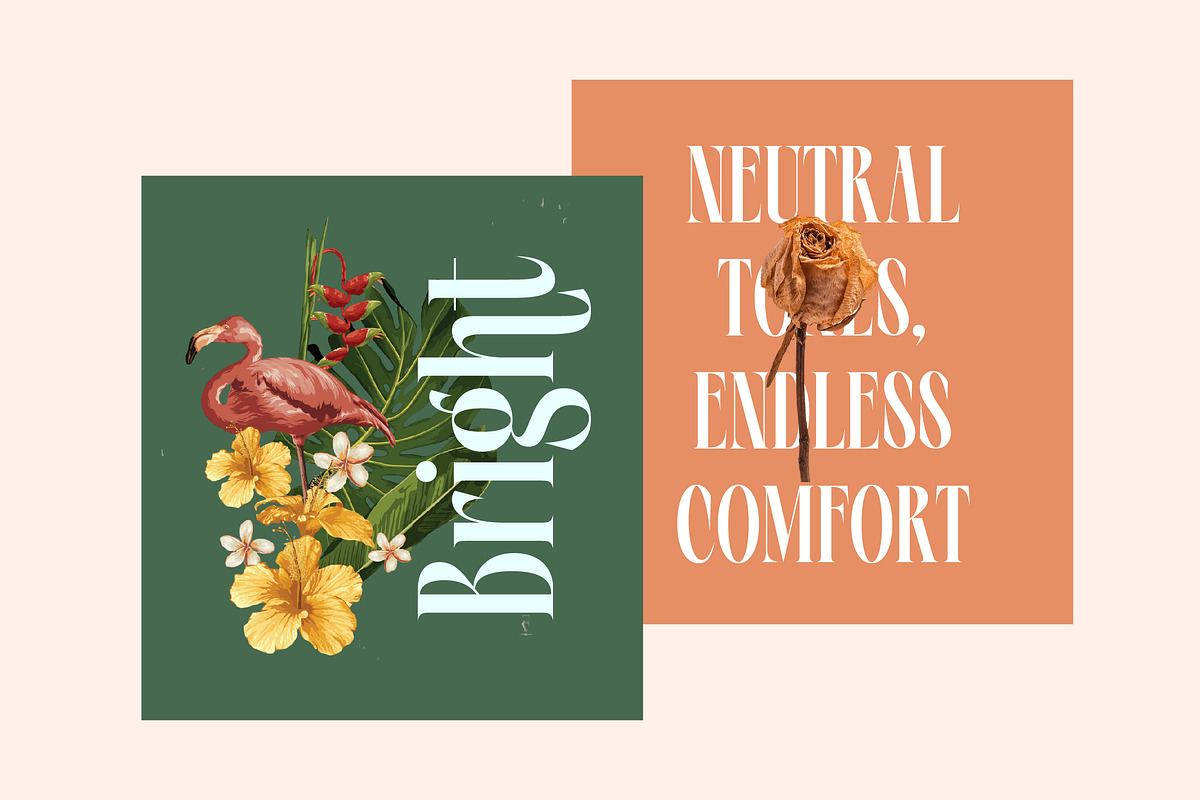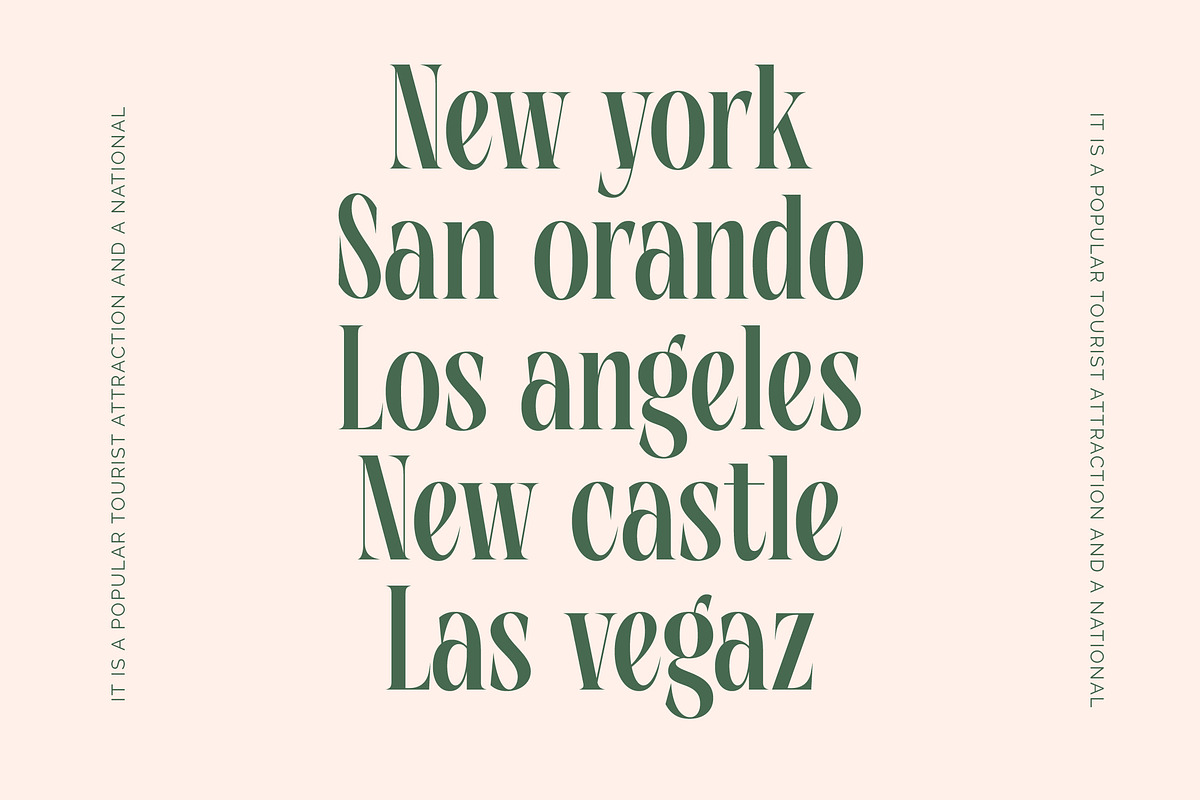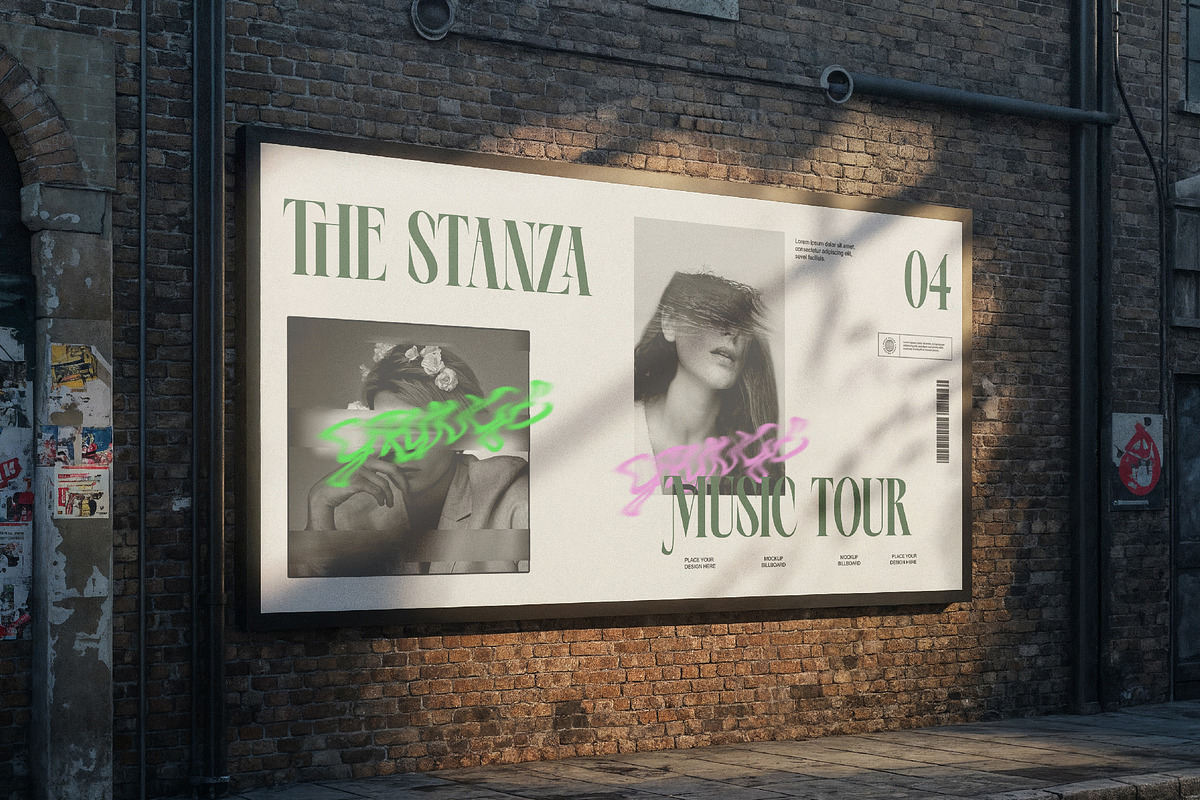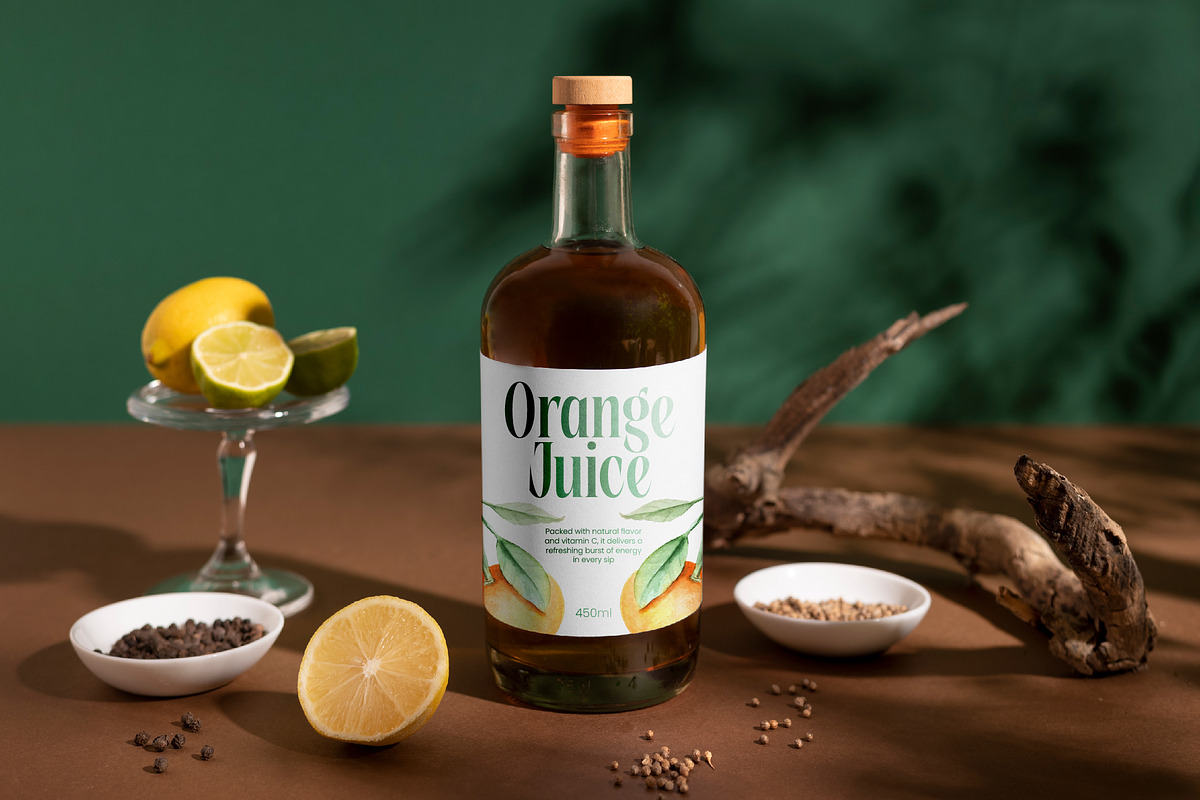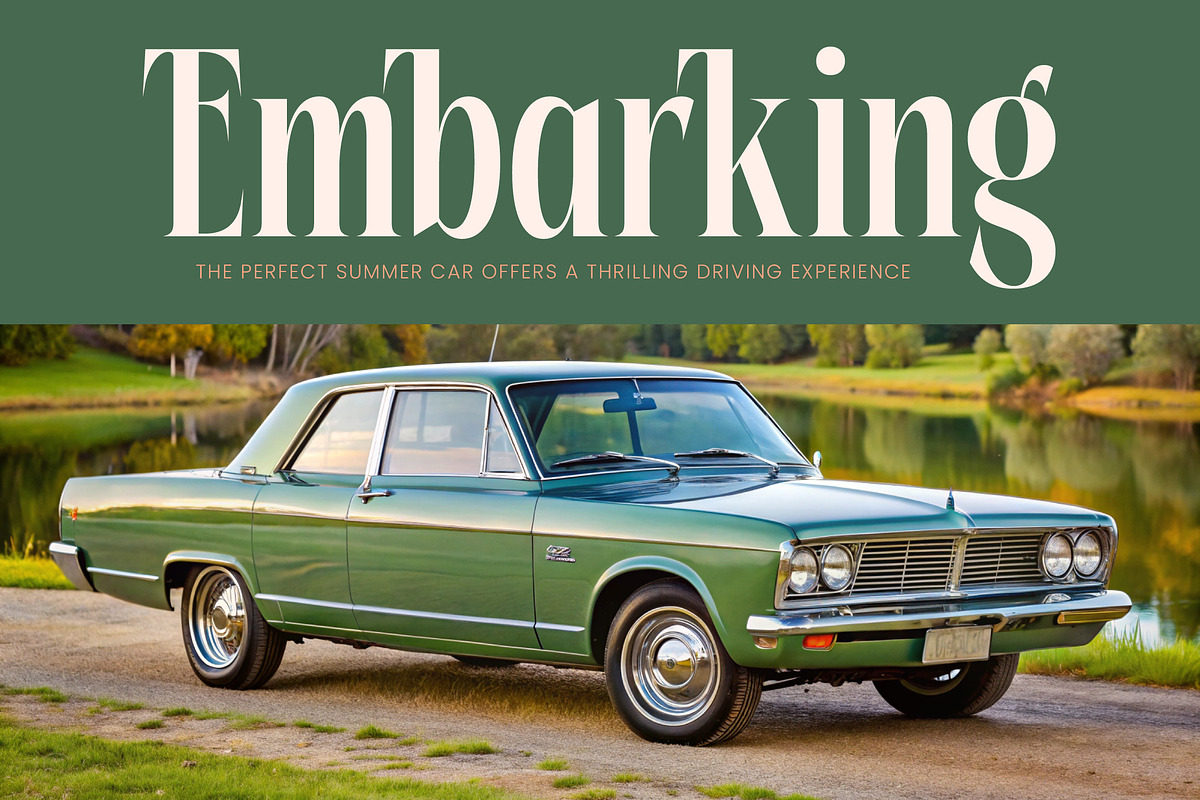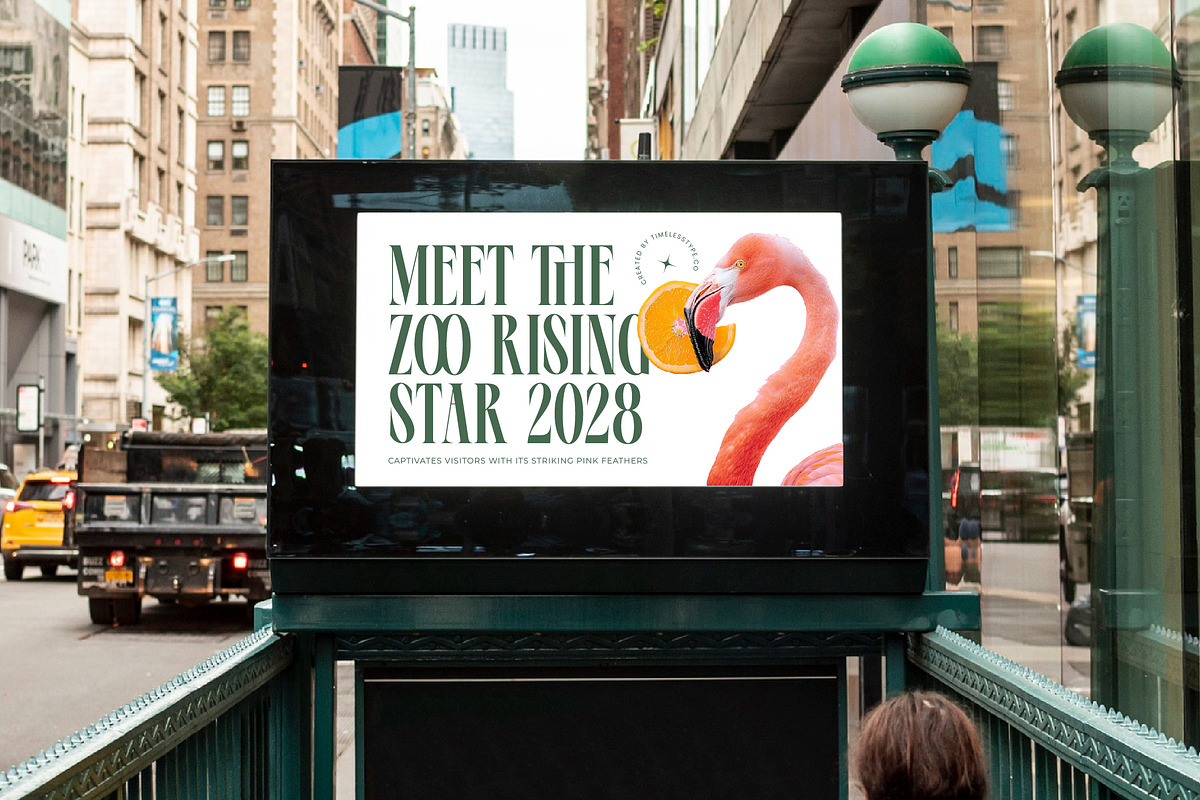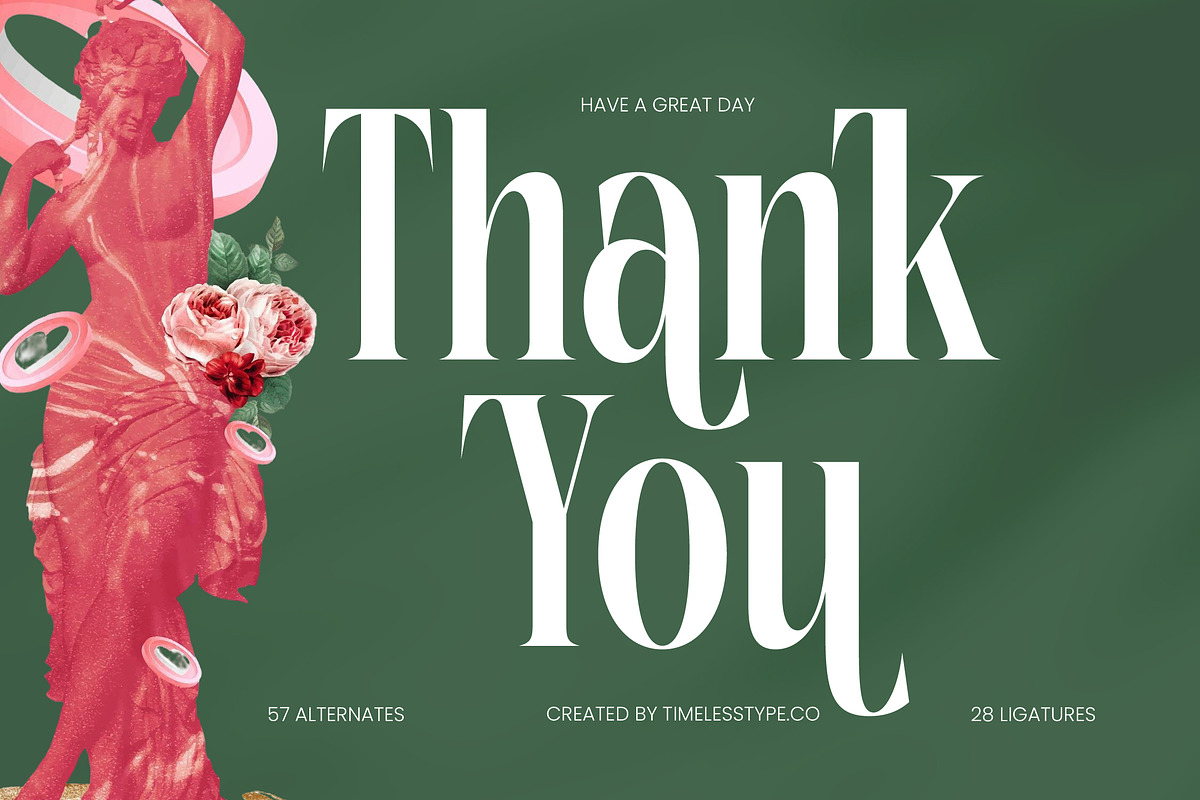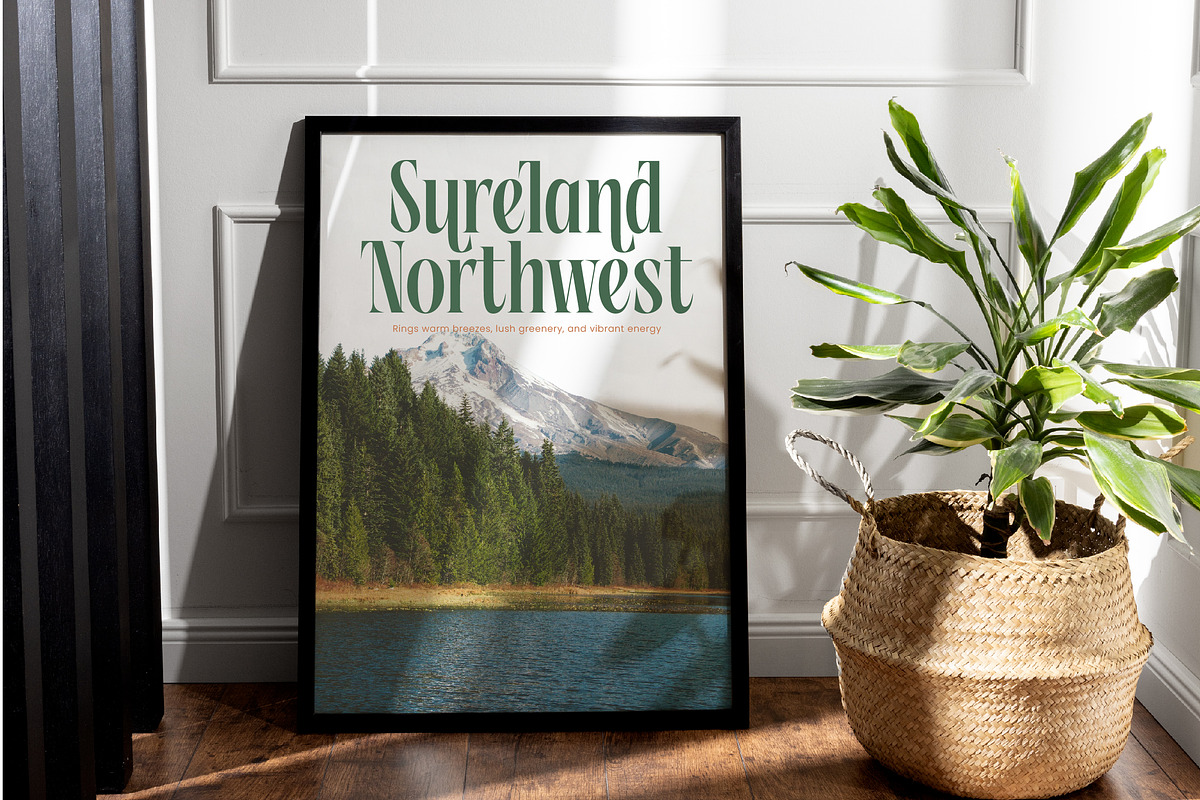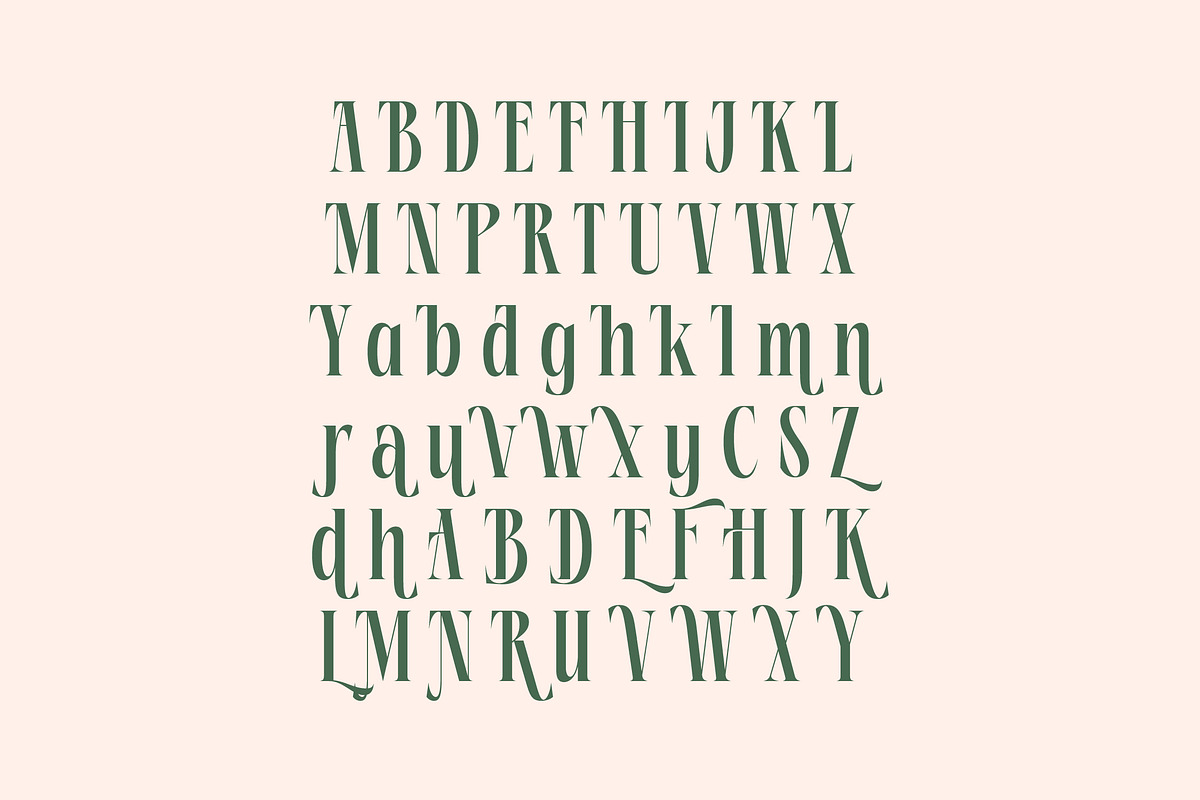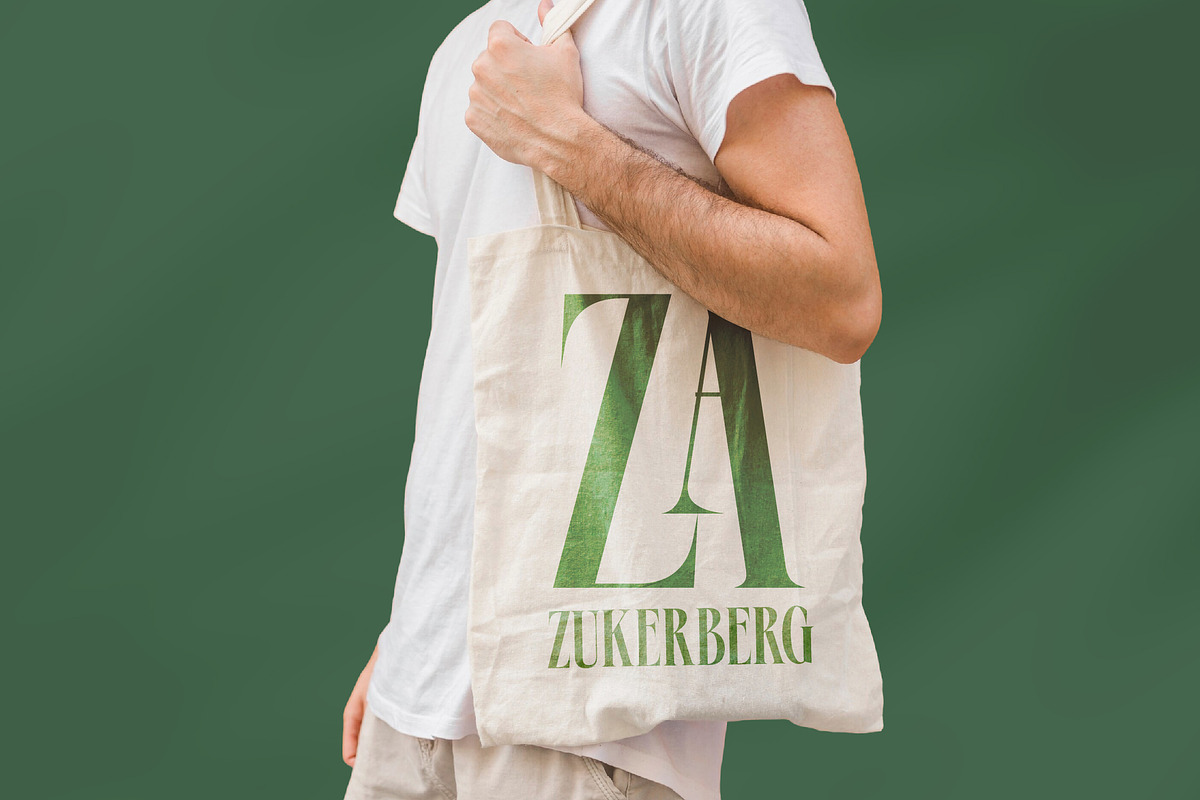
Repslag Brocker Luxury Serif Font
Introducing Repslag Brocker, a masterpiece of high-contrast elegance designed to redefine the boundaries of modern sophisticated design. This typeface captures a perfect balance between classical sculpture and avant-garde editorial aesthetics.
Drawing inspiration from the delicate curves of Renaissance art and the sharp, clean lines of mid-century fashion magazines, this font evokes an atmosphere of timeless luxury. It creates a visual narrative that feels both deeply historical and refreshingly contemporary.
With its modern serif display structure and high-contrast serif strokes, this font delivers an unmatched luxury typography experience. It is engineered for branding impact, ensuring that every word serves as a bold statement of style and editorial font excellence.
Perfectly aligned with the current modern serif trend, this typeface meets the demand for editorial display fonts that offer more than just legibility. It leans into the move toward character-driven typography where every letterform tells a unique story of craft and artistry.
From high-end logo design and comprehensive branding systems to experimental editorial layouts, this font excels in diverse environments. It is the ideal choice for luxury packaging, romantic wedding stationery, and cutting-edge fashion lookbooks.
The typeface is packed with technical versatility, featuring 57 unique alternates and 28 elegant ligatures alongside decorative swashes to create custom-looking layouts. It includes full support for international characters and multilingual glyphs, ensuring your global design projects remain cohesive and stunning.
- Ligature 28 Alternate 57